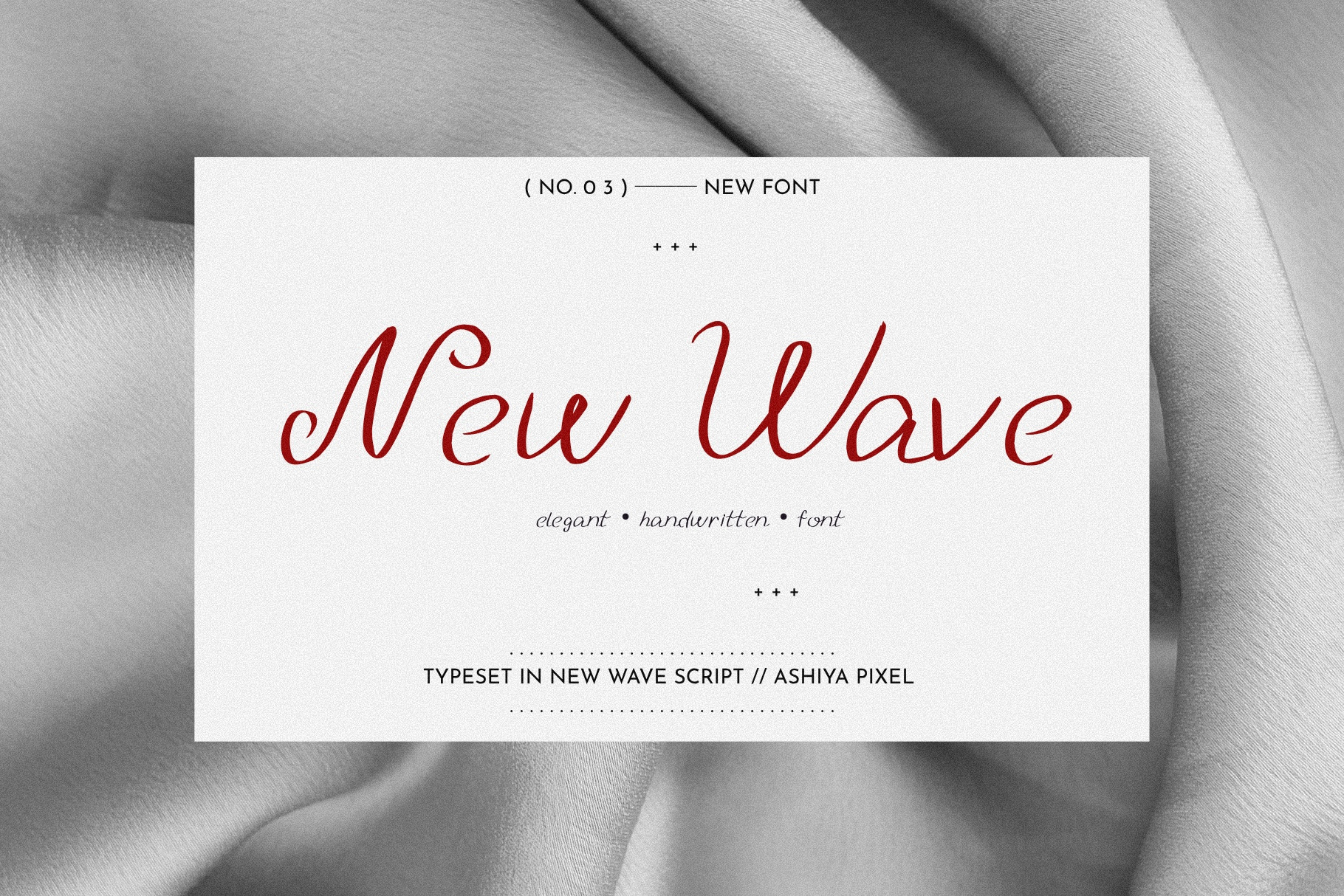
New Wave Vintage Cursive Script Font
New Wave is a vintage cursive script font featuring delicate, hand-lettered letterforms, sweeping capital swashes, and a timeless aesthetic. Inspired by traditional penmanship, old journals, and romantic stationery, it brings an intimate, authentic touch to your creative projects.
*Full uppercase & lowercase Latin alphabet with cursive flourishes
*Numbers, punctuation marks, and essential mathematical symbols